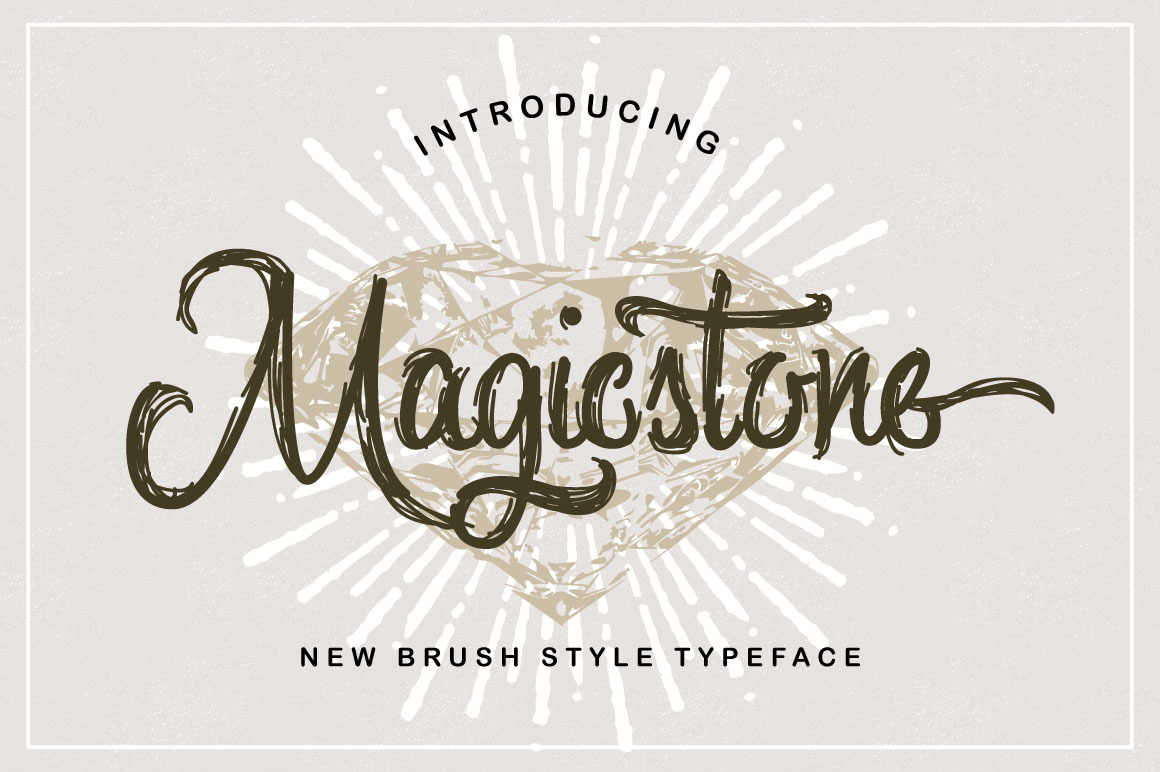
Magicstone Typeface
Magicstone Typeface is perfect for mystical branding, fantasy gaming logos, magical product packaging, enchanted book covers, spiritual wellness centers, crystal shop signage, medieval-themed restaurants, fantasy entertainment materials, occult store branding, mystical jewelry catalogs, magical event invitations, and enchanting editorial design.
What makes Magicstone Typeface exciting is its mystical enchantment that captures the ancient wisdom and magical power of sacred stones through mysterious letterforms that evoke otherworldly energy. This spellbinding typeface embodies the essence of ancient magic and crystalline power, combining arcane elegance with contemporary functionality that resonates with audiences seeking spiritual connection and mystical experiences. The font's mystical character and runic-inspired details create immediate fascination while maintaining the readability essential for modern commercial applications. Its enchanting presence makes it perfect for brands that want to communicate mystery, ancient wisdom, and the transformative power of magical experiences and spiritual awakening.
The Magicstone Typeface family includes regular, medium, and bold weights, featuring mystical alternates, magical ligatures, and ancient-inspired decorative elements. The character set incorporates runic symbols, mystical numerals, and enchanted punctuation marks that enhance the font's magical character and provide designers with comprehensive fantasy and spiritual design solutions.
Whether you're developing mystical brand identities, creating fantasy marketing materials, or designing spiritual communications, Magicstone Typeface Free Download delivers the enchanting power your magical projects require. This premium typeface excels in applications where mystery and spiritual connection are essential for brand positioning and audience engagement in fantasy and wellness markets. The font's mystical qualities work magnificently across packaging, gaming interfaces, and print applications, making it an invaluable asset for designers serving fantasy entertainment and spiritual wellness industries. Gaming companies and spiritual brands choose this font for its ability to communicate ancient wisdom while maintaining professional standards and market appeal. The comprehensive character support includes mystical symbols and ancient-inspired glyphs, expanding its versatility for fantasy applications and spiritual communications. Professional designers appreciate its perfect balance of mystical authenticity and commercial functionality, ensuring projects remain both magically compelling and practically effective for modern audiences. When you implement this exceptional typeface in your mystical communications, you're selecting a typography solution that celebrates ancient wisdom and magical transformation, ensuring your brand connects with audiences seeking spiritual experiences and fantasy adventures while maintaining the enchanting credibility essential for success in competitive fantasy entertainment and spiritual wellness markets that inspire people to explore mystical realms and discover their inner magical potential.